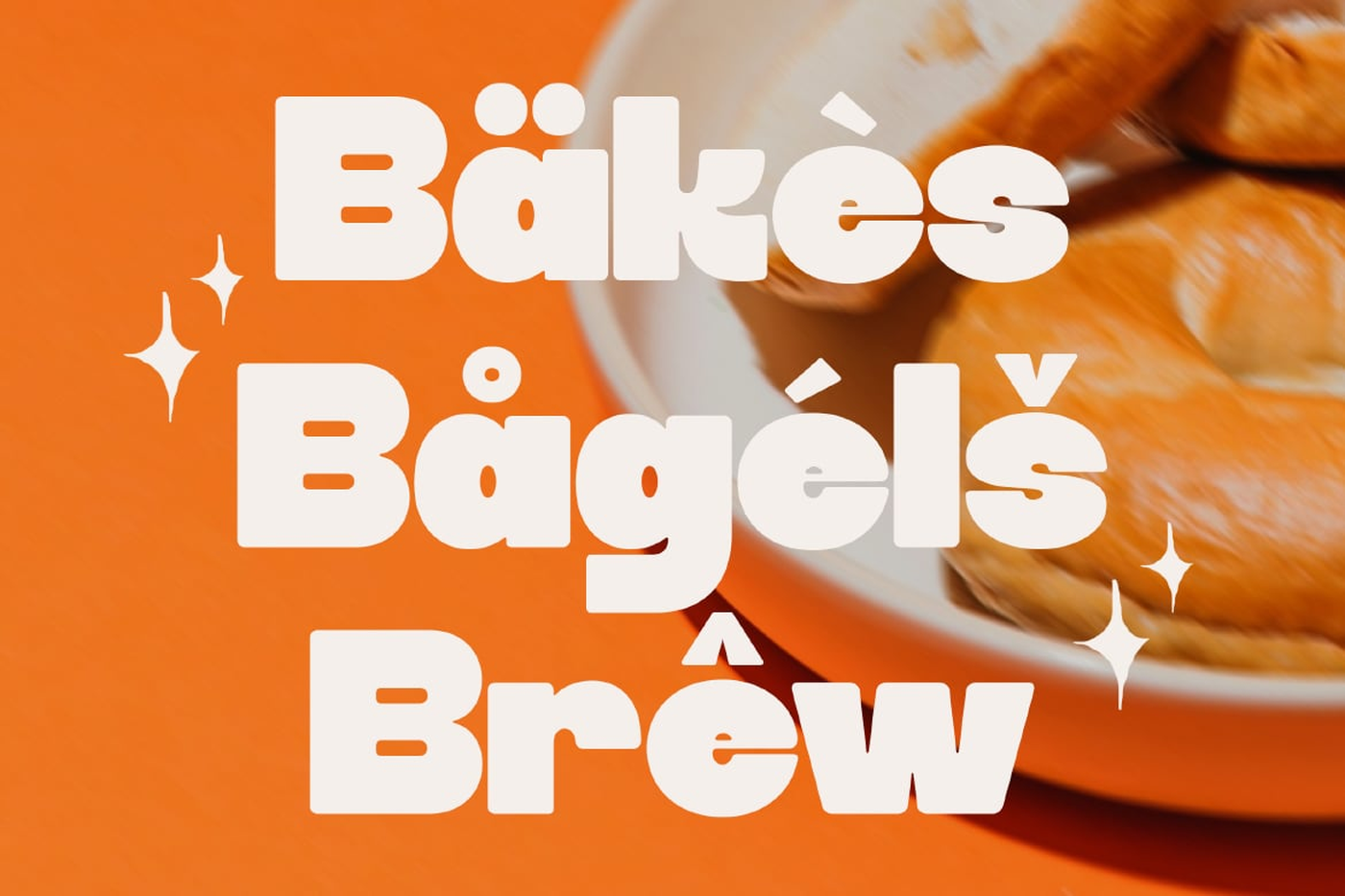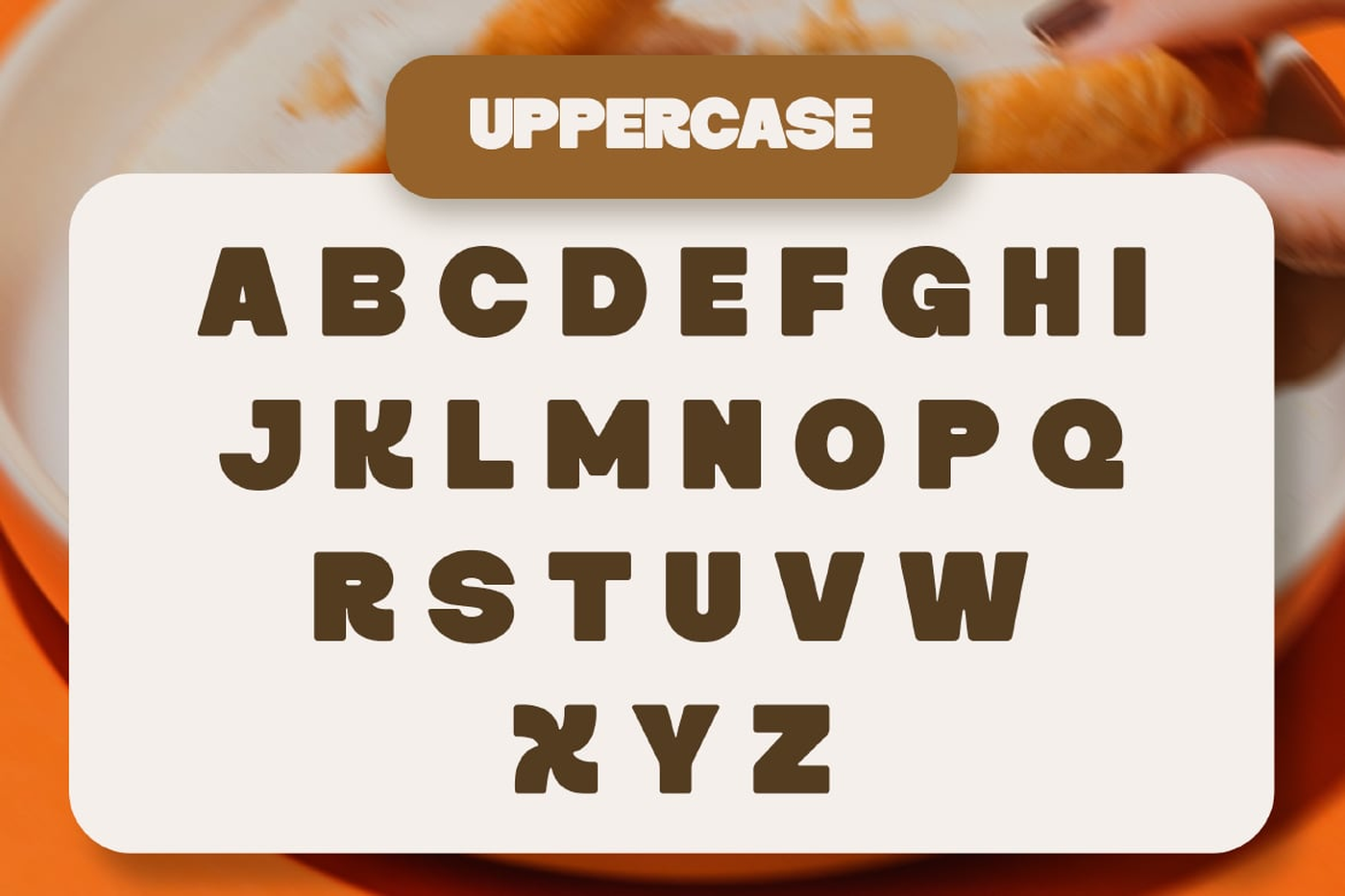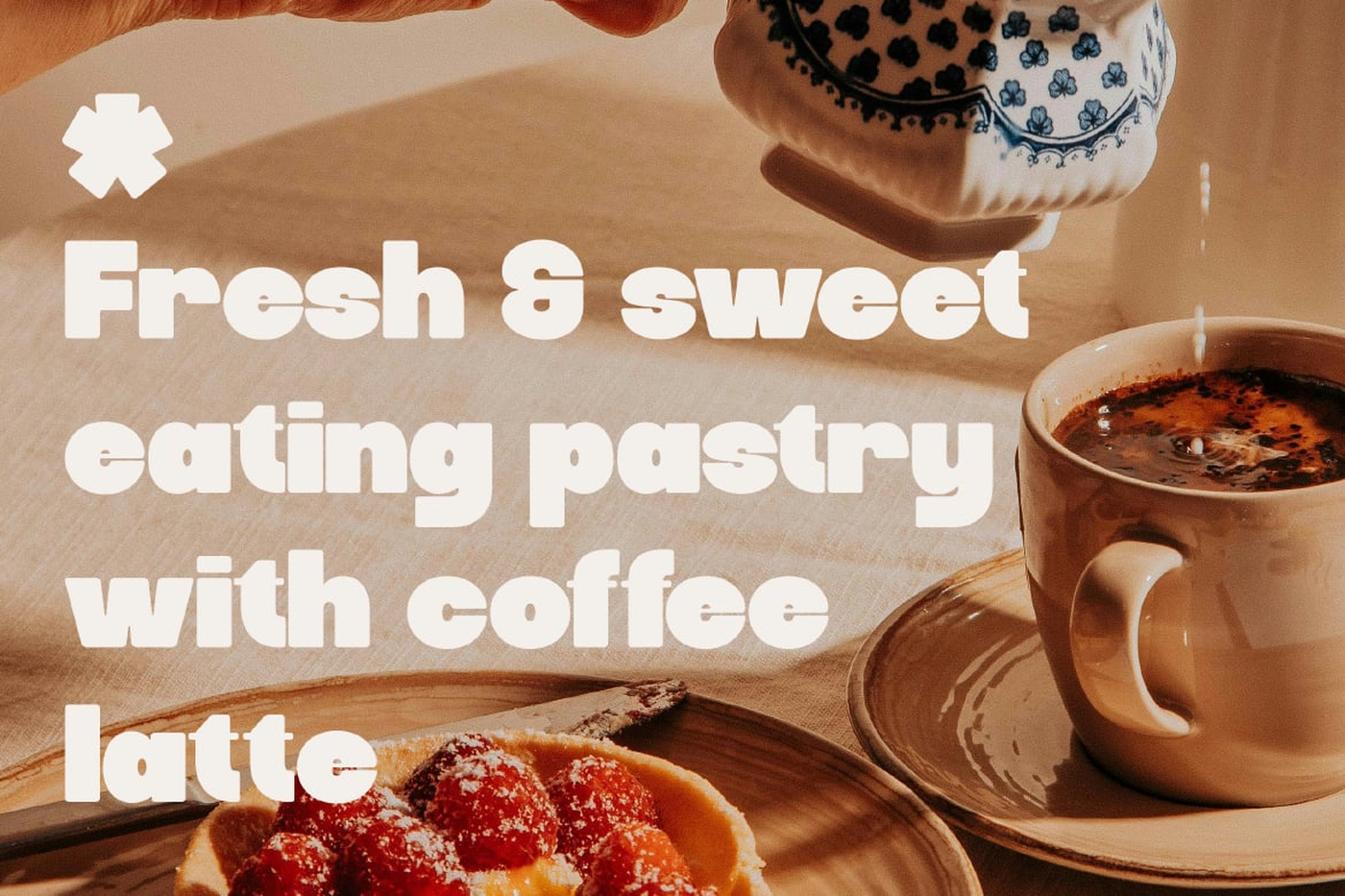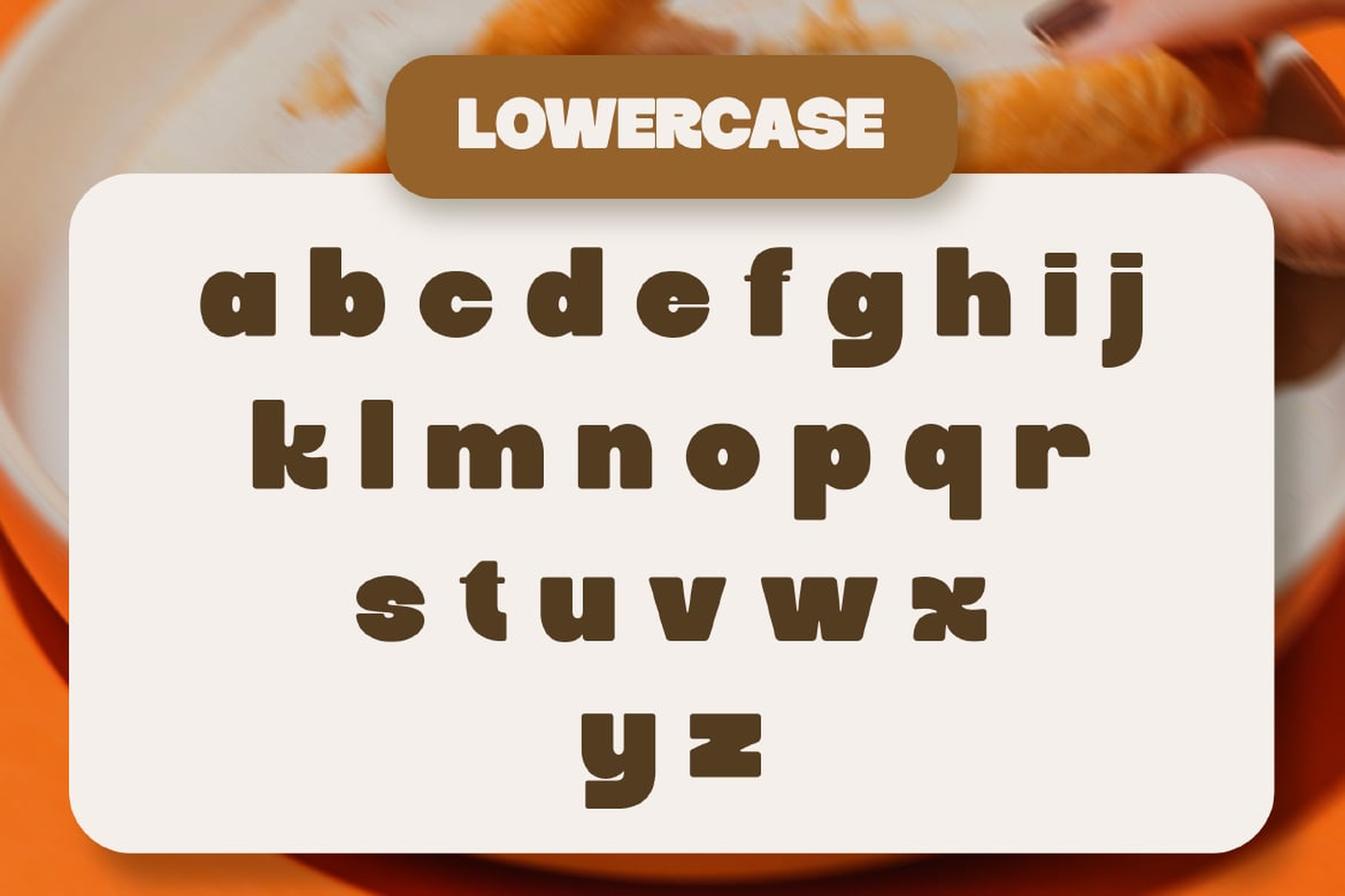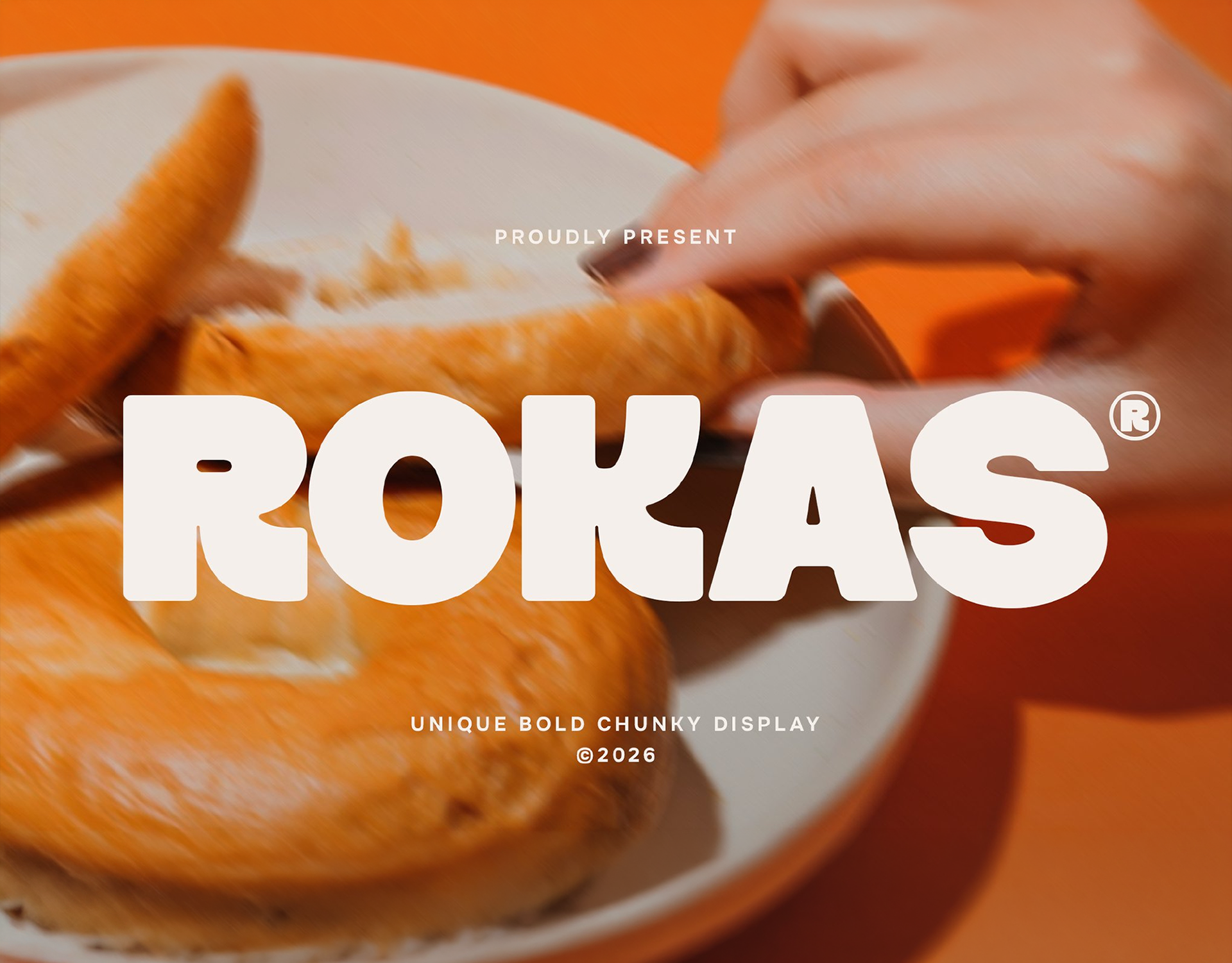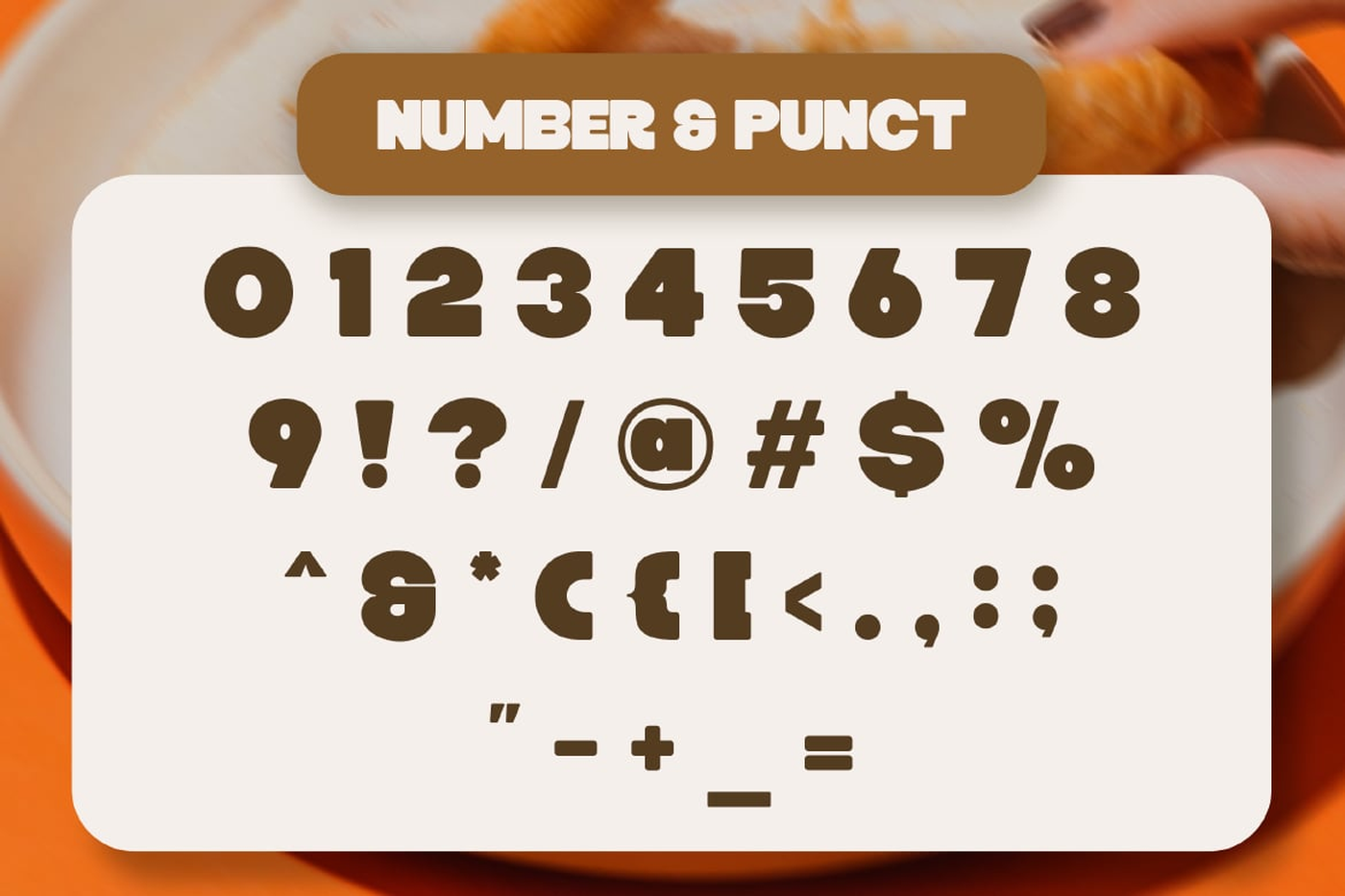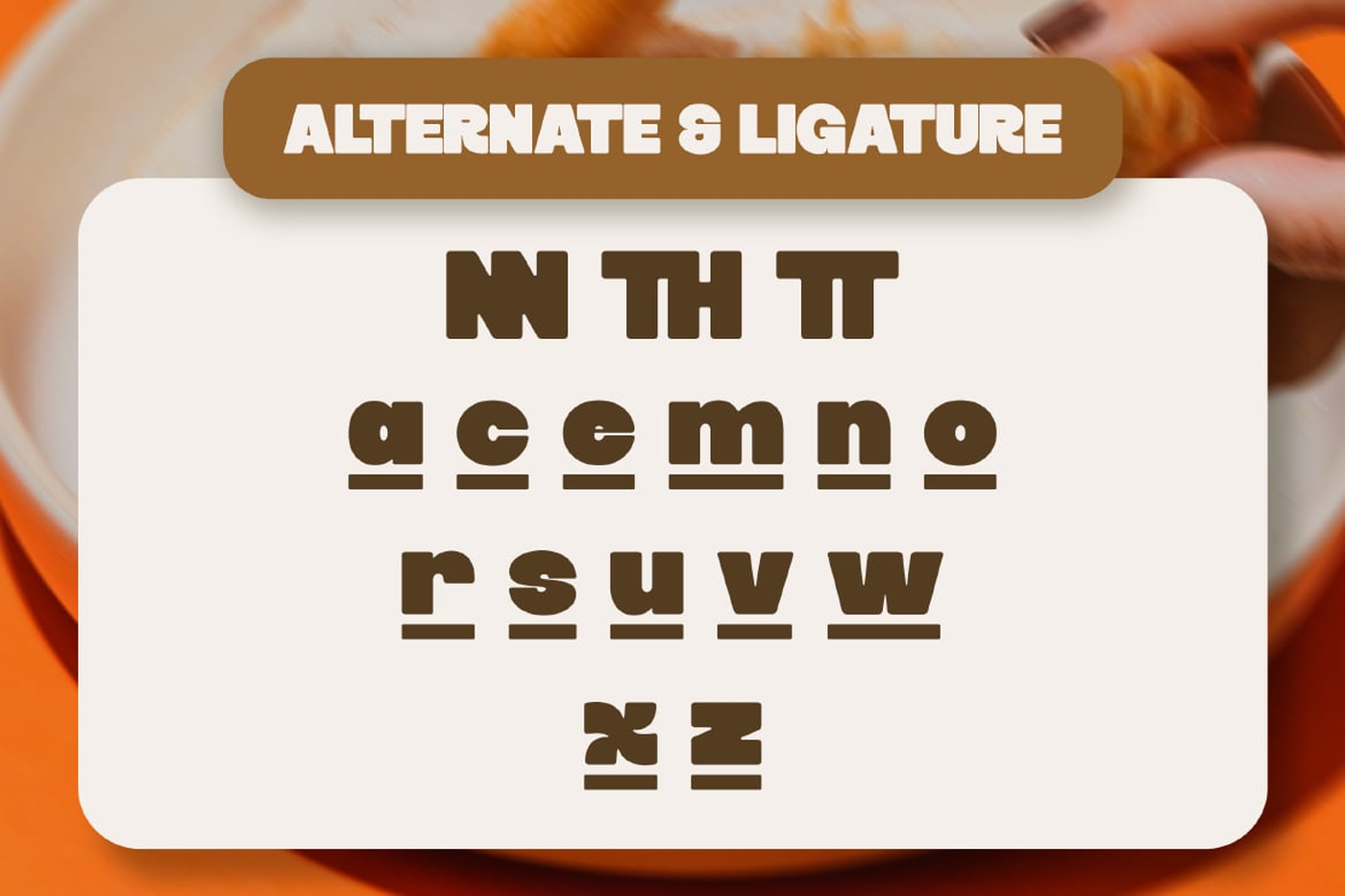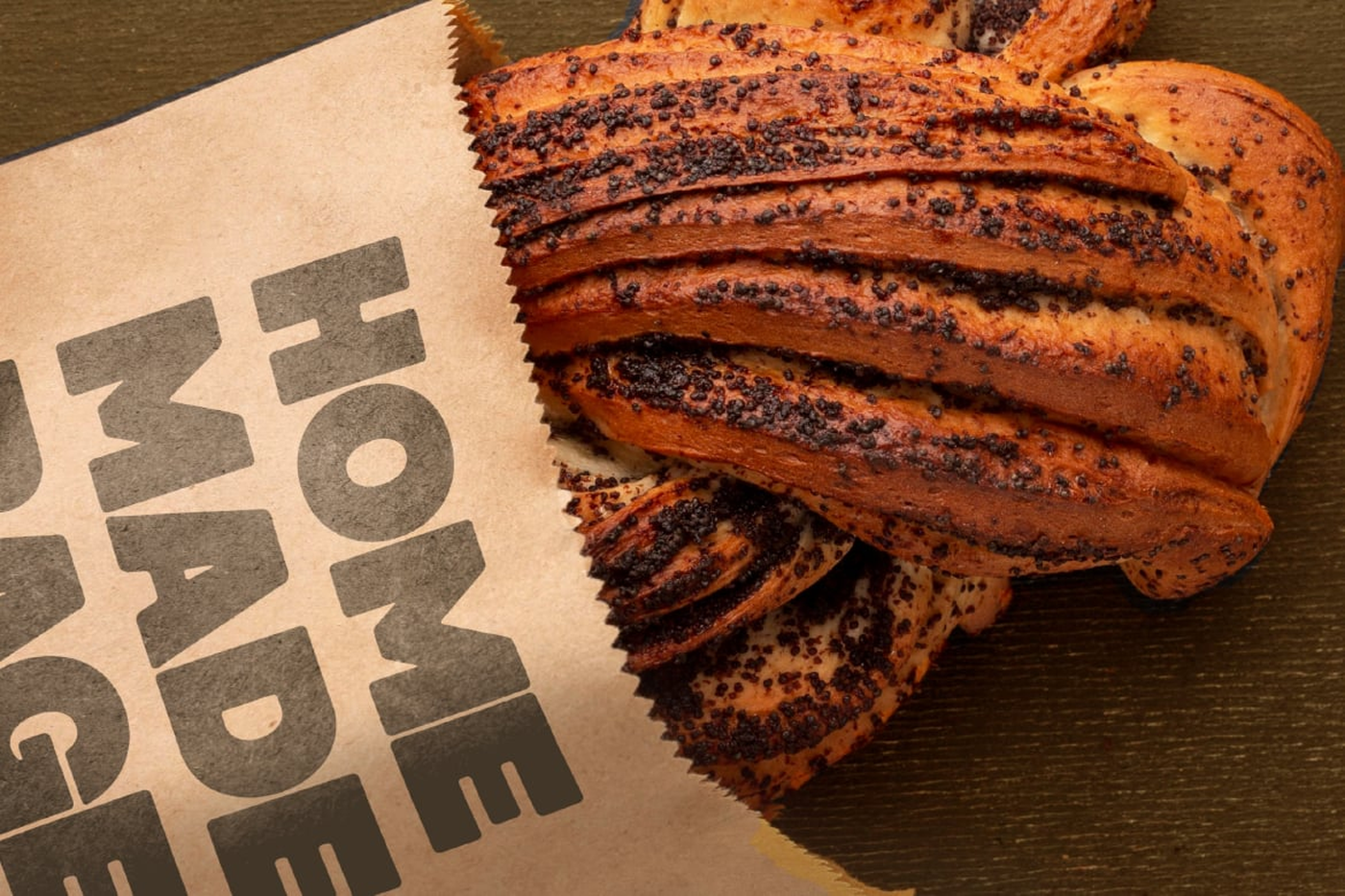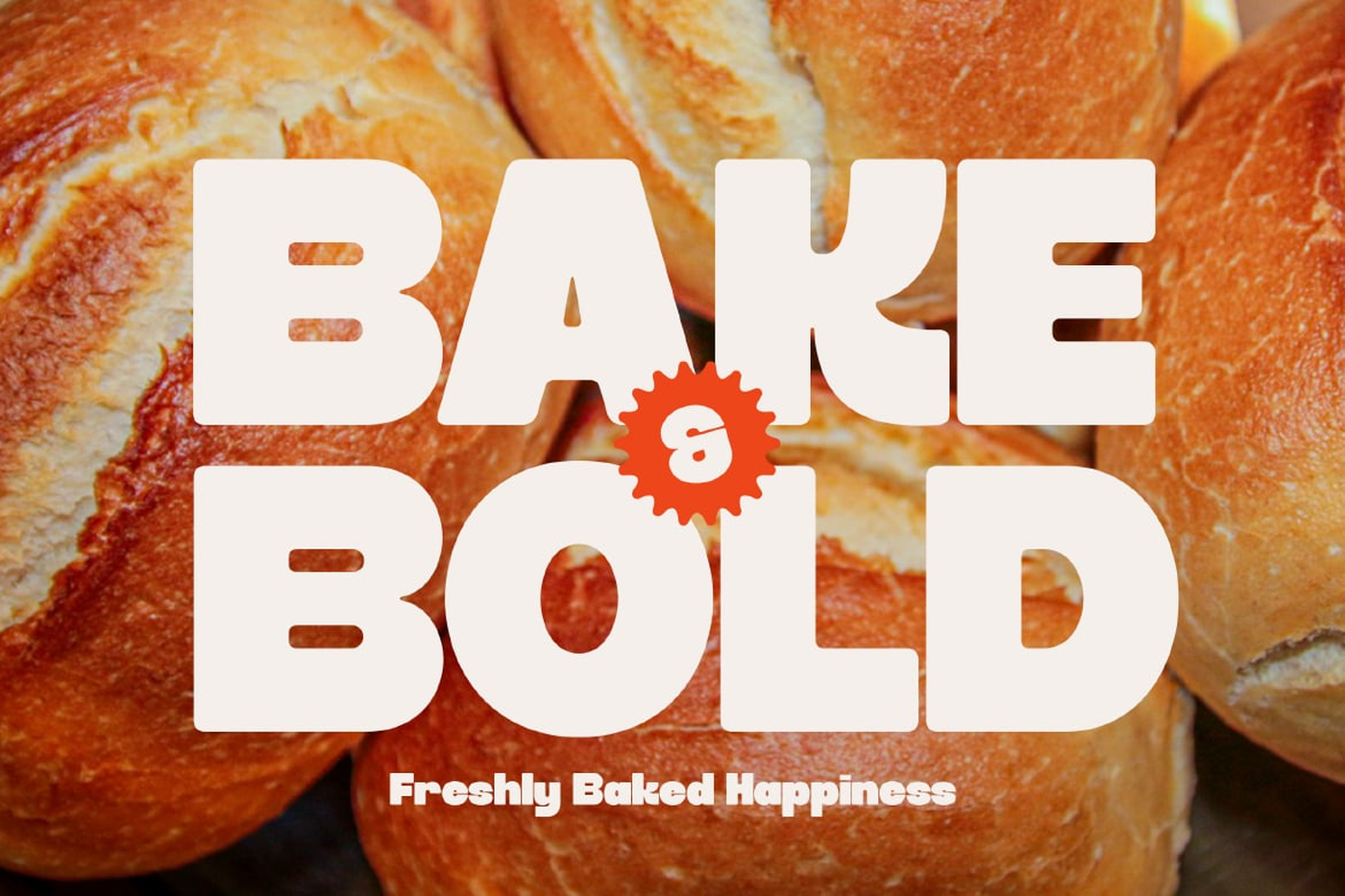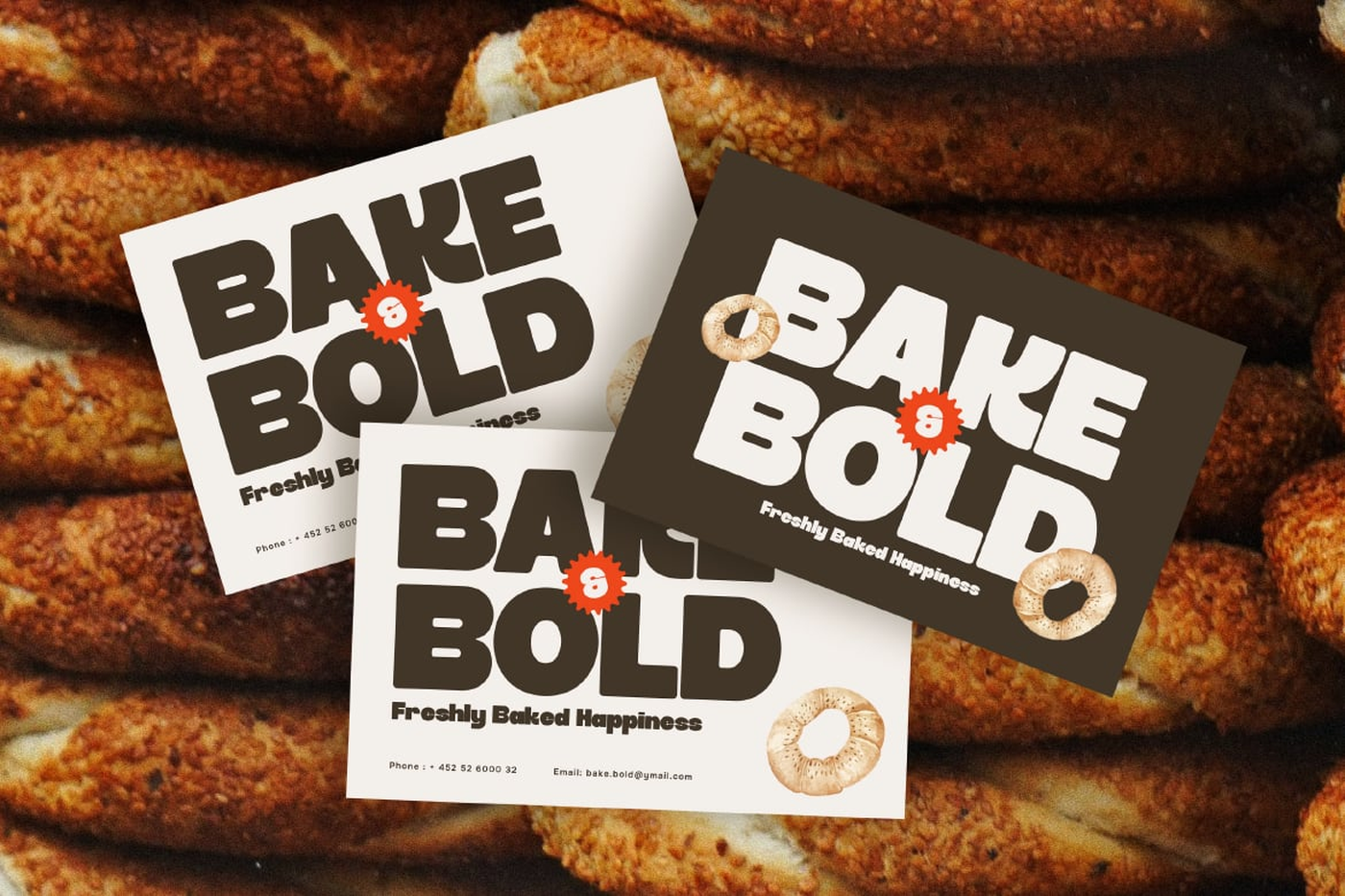
Rokas - Bold Display Sans Font
Rokas is a unique bold chunky display font that brings a fun, expressive, and high-impact style to your designs. Defined by its thick proportions and playful shapes, this font creates a strong visual rhythm that feels lively, modern, and full of personality. Every letter is crafted to stand out, making Rokas perfect for designs that need to grab attention instantly. Its bold and rounded structure gives a friendly yet confident appearance, allowing it to work across a wide range of creative projects.